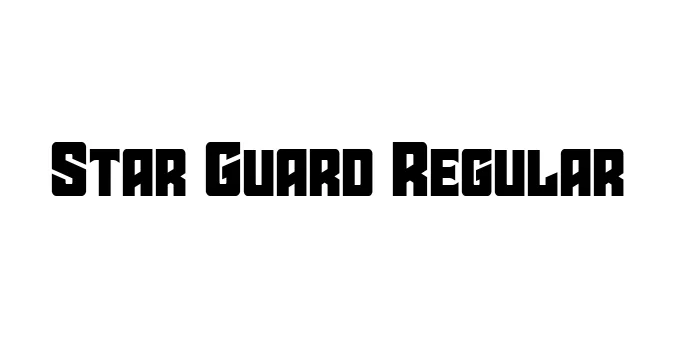
Star Guard Regular
Designed by Dan Zadorozny
| Font Name | Star Guard |
| Designer | Dan Zadorozny |
Star Guard Regular is a prominent display typeface designed by Dan Zadorozny of Iconian Fonts. Drawing inspiration from the aesthetics of classic science fiction cinema and retro-futuristic technology, this font features a robust, heavy-weight structure with distinctive angular cuts and geometric precision. Its bold presence is designed to command attention, making it a staple for projects requiring a sense of strength and advanced technology.
Over the years, the typeface has become a popular choice among digital artists and graphic designers for its versatility in the sci-fi and action genres. Whether used for interstellar navigation interfaces or high-octane sporting events, Star Guard Regular provides a clean yet aggressive look that bridges the gap between mid-century mechanical design and modern digital artistry. Its wide letterforms and consistent stroke weights ensure readability even in high-impact visual environments.
Star Guard Regular Best Uses
Ideal for HUD elements, title screens, and futuristic user interfaces.
Perfect for titles and credits in science fiction or action-heavy productions.
Suited for tech startups, esports teams, and modern engineering firms.
Effective for bold, graphic prints on streetwear and athletic gear.
Excellent for high-energy transitions and metallic text effects in animation.